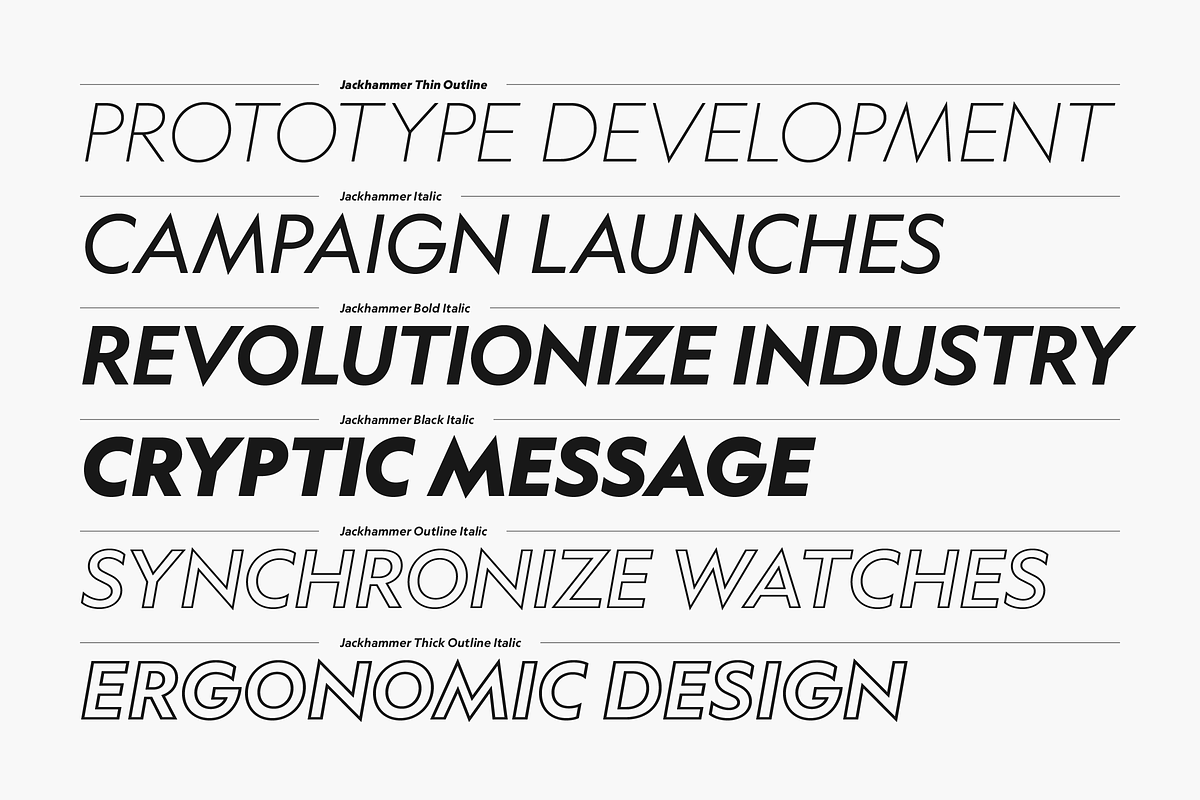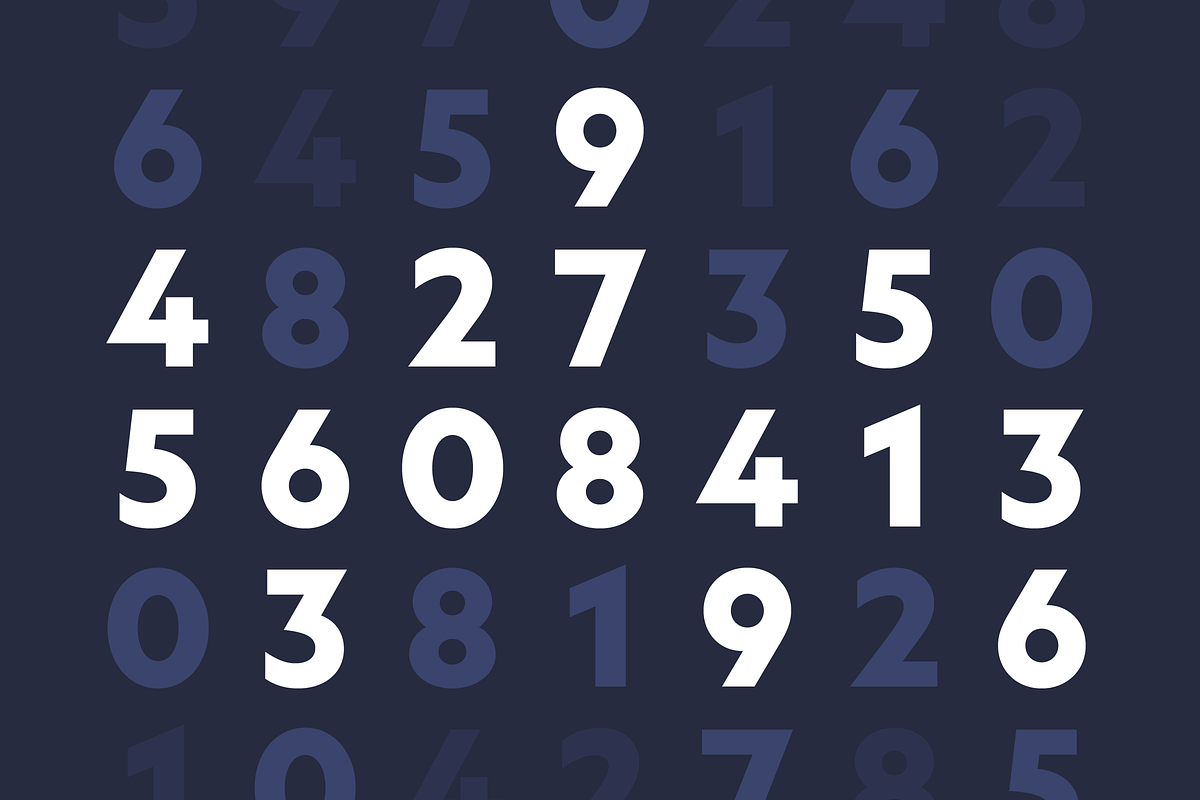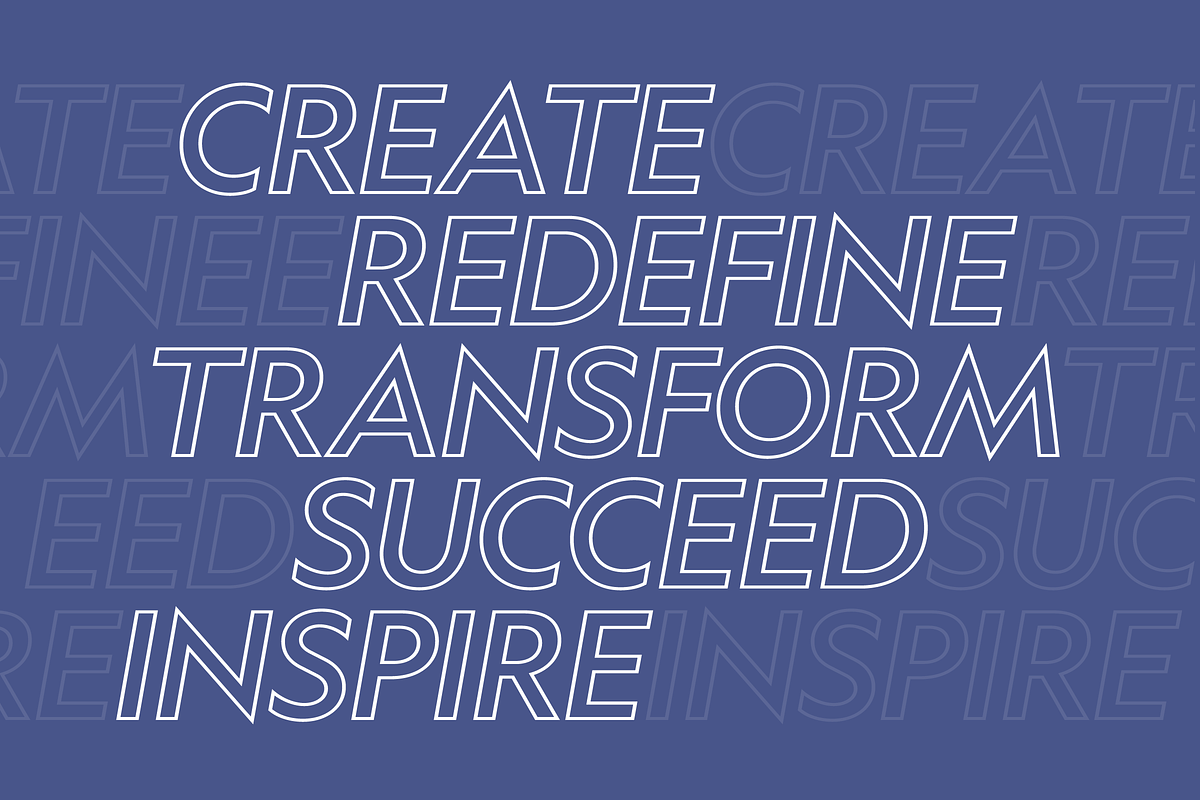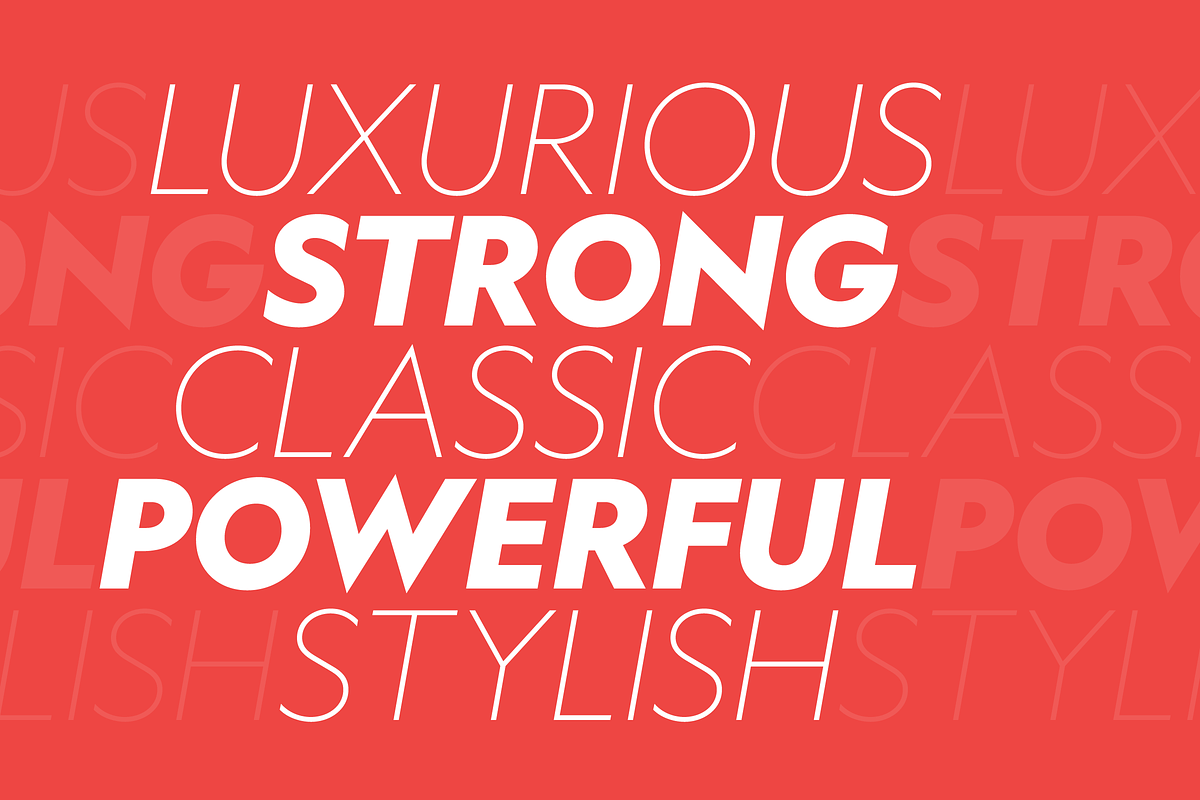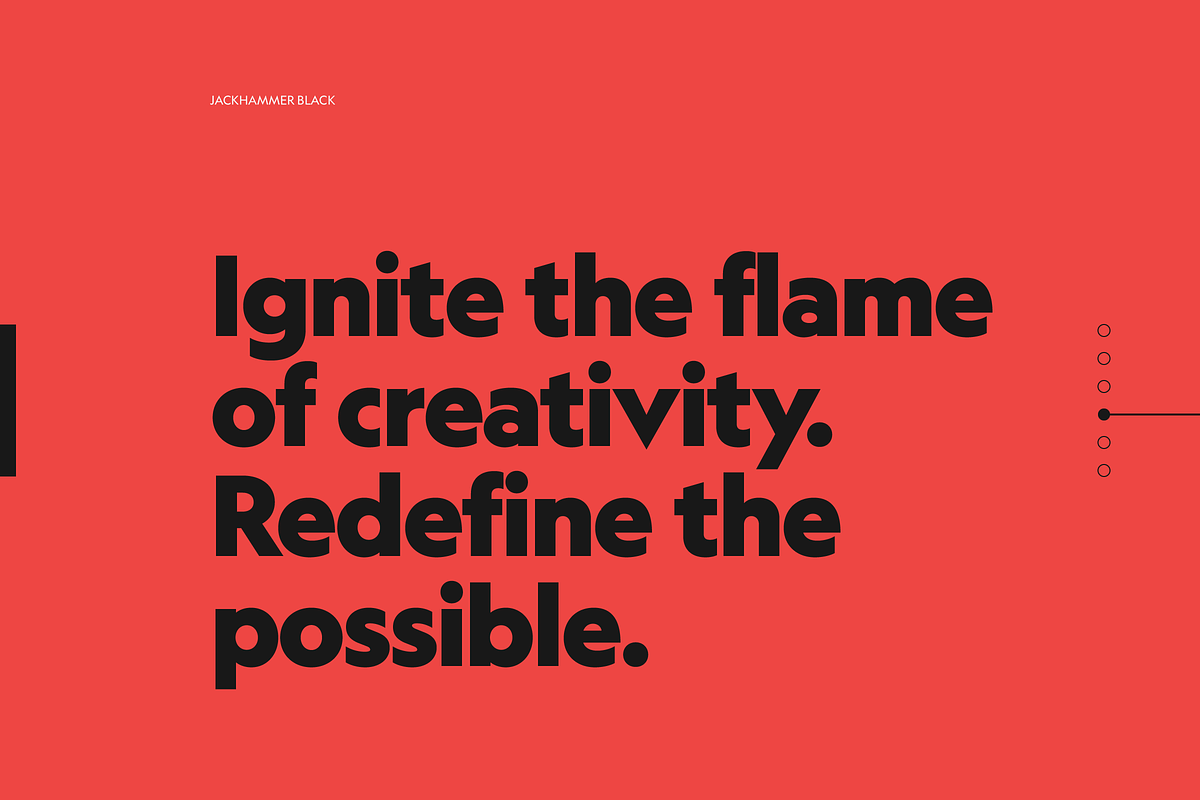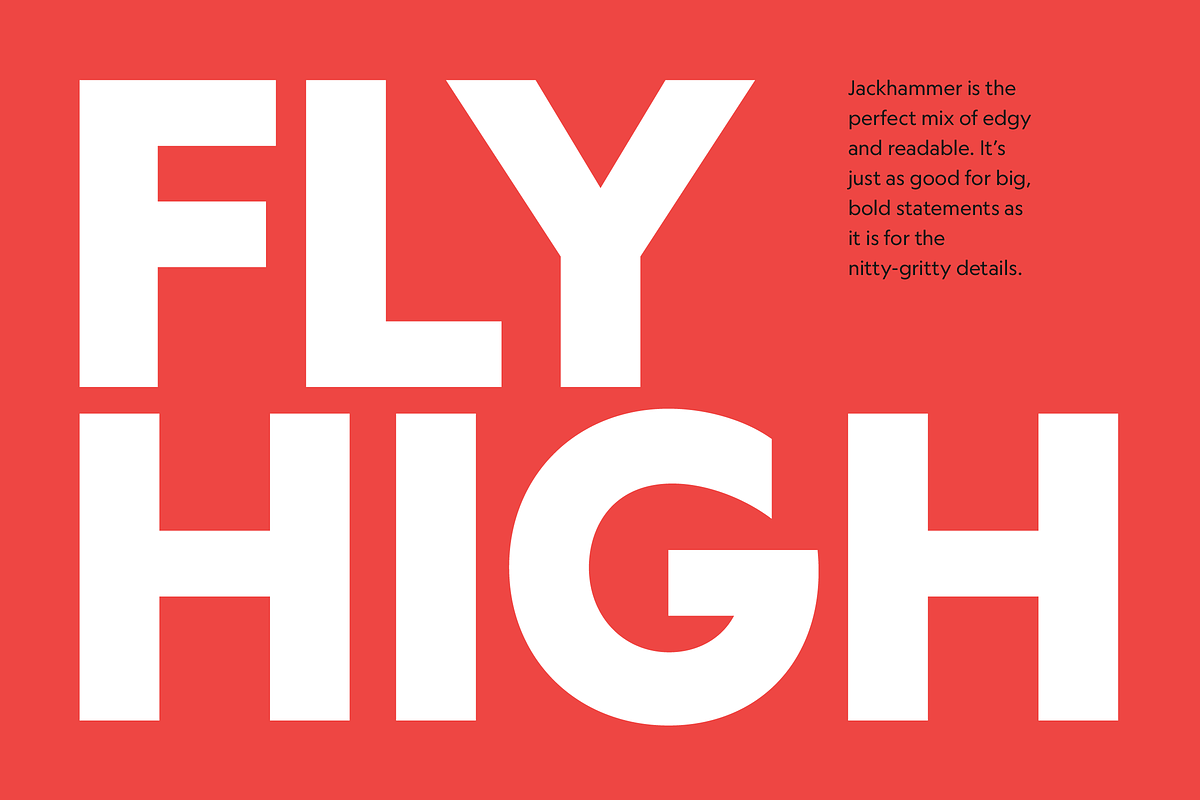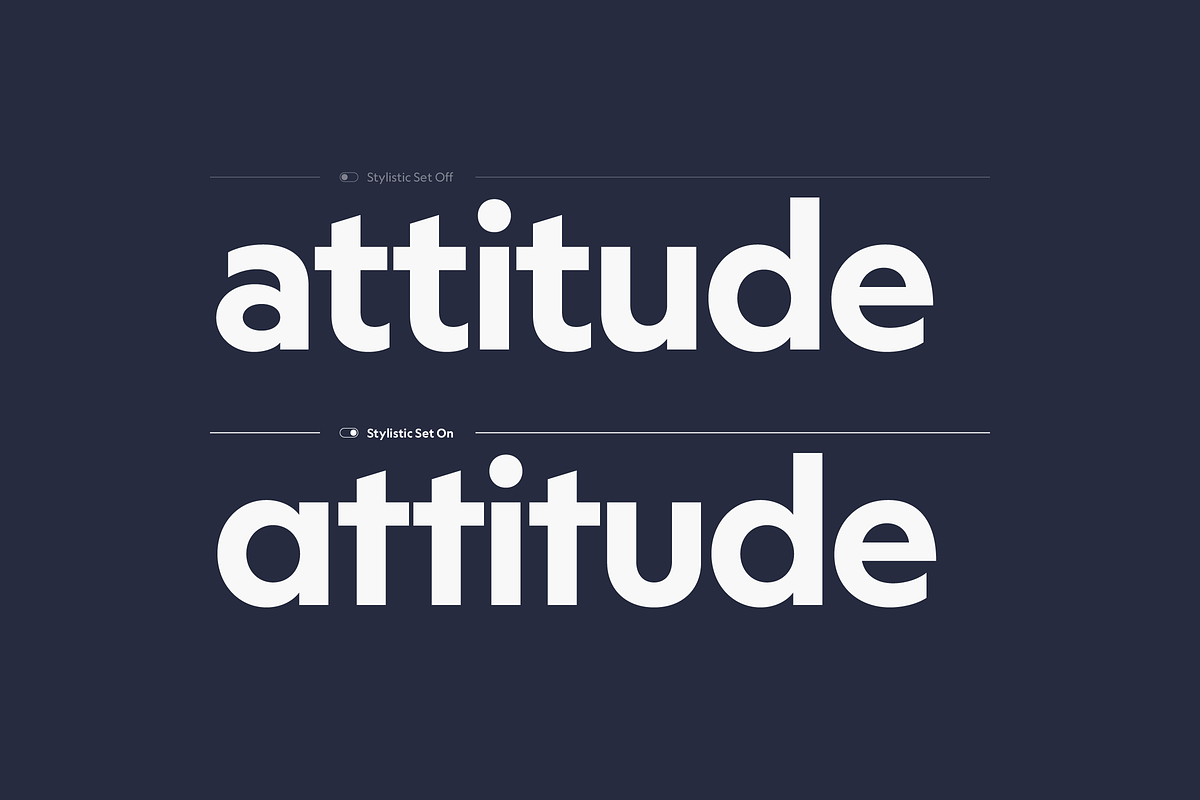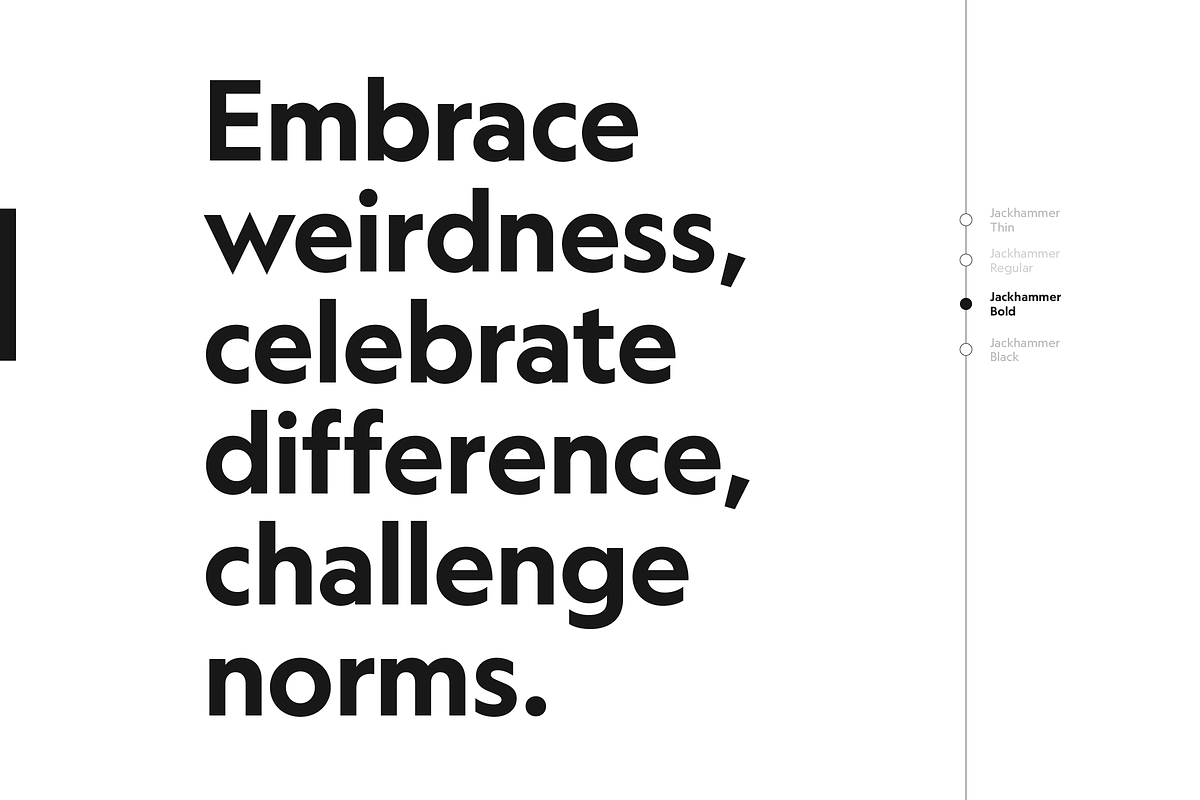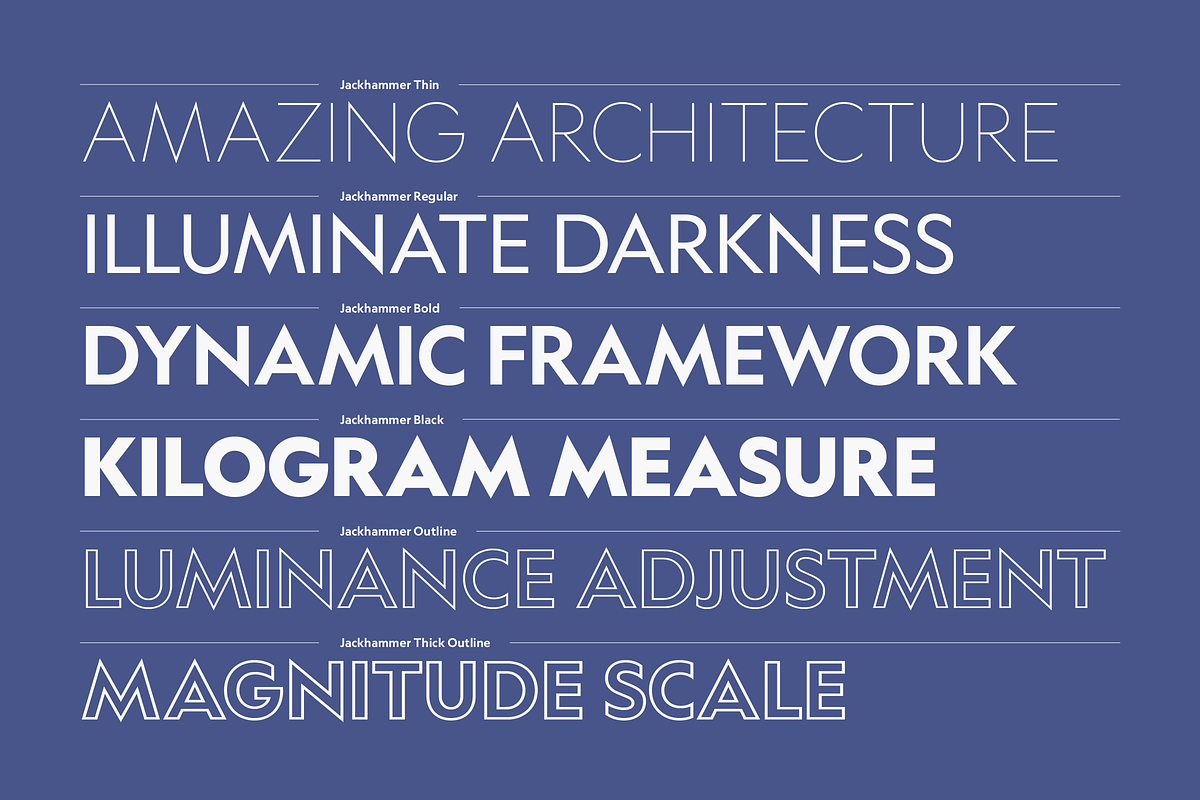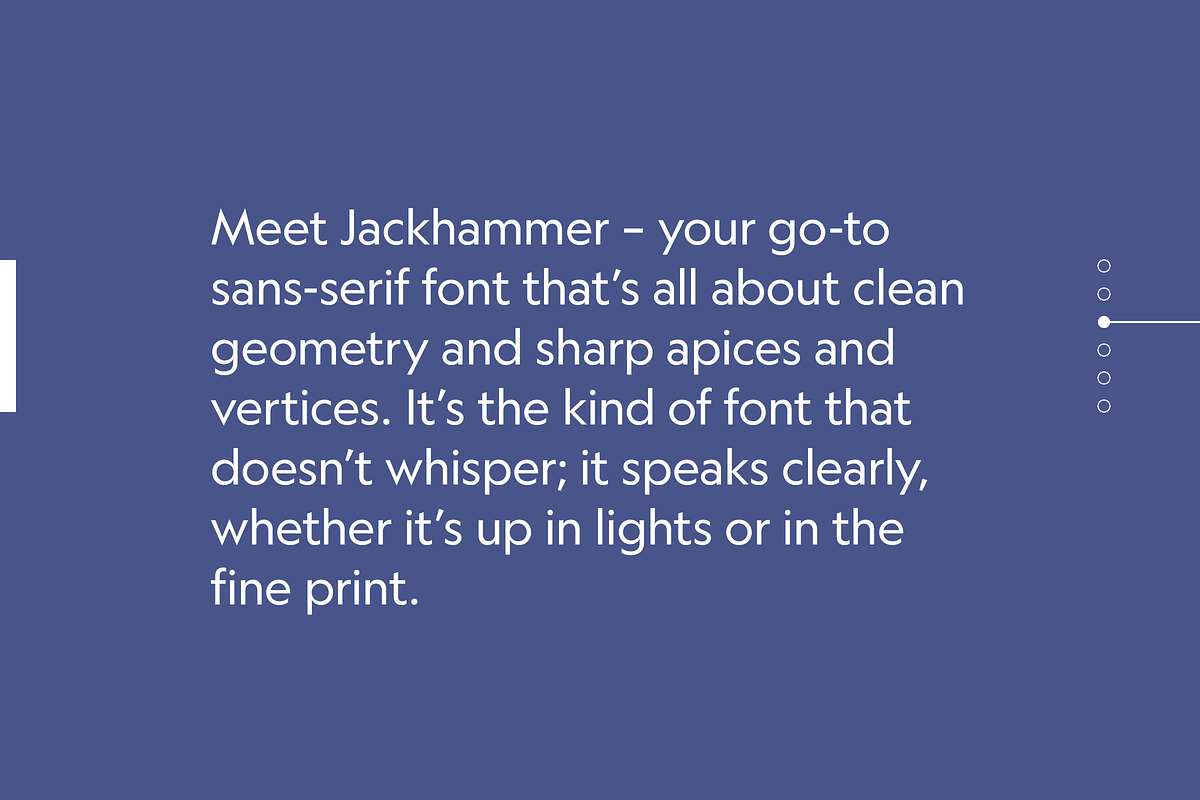
Jackhammer Pro Typeface
Meet Jackhammer Pro – your go-to sans-serif font that's all about clean geometry and sharp apices and vertices. From the elegantly thin to the boldly black, each weight is crafted to offer a new perspective on design, making it ideal for everything from heartfelt invitations to powerful brand identities.
With support for 306 languages, Jackhammer Pro is as versatile as it is beautiful, ready to speak to audiences worldwide.
Whether you're crafting a website, designing a poster, or setting the mood for your next big project, let Jackhammer Pro be your companion.